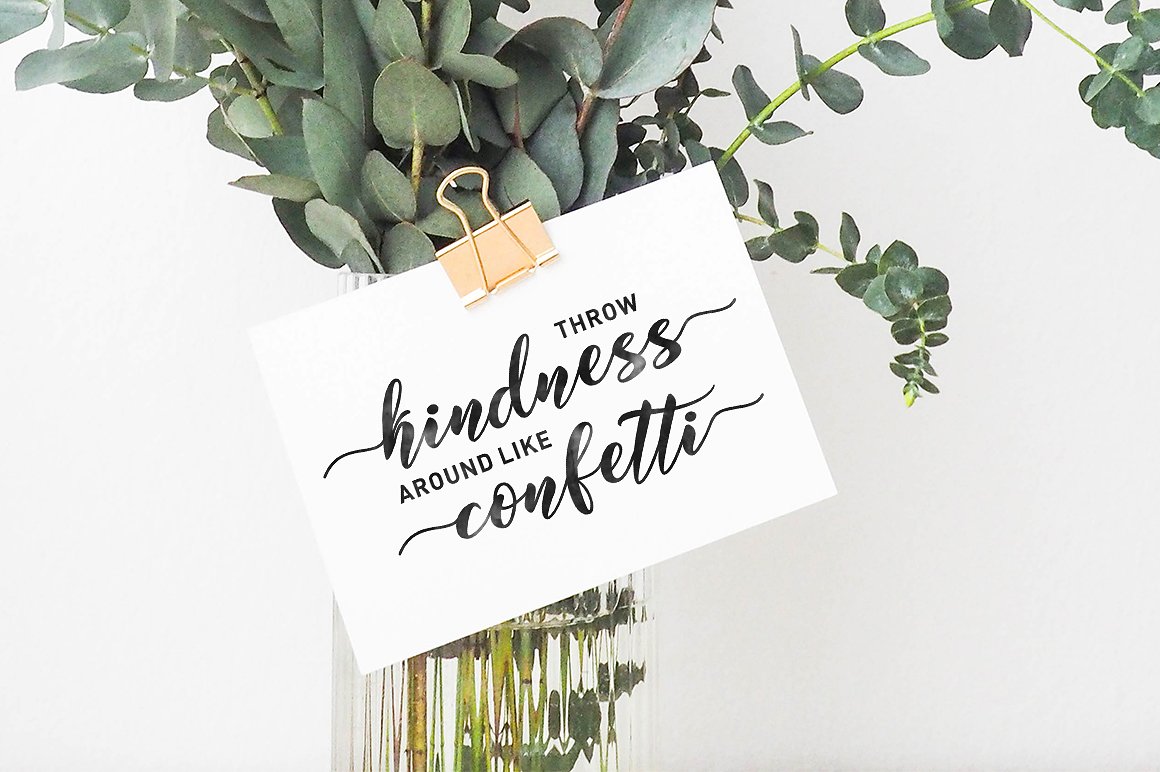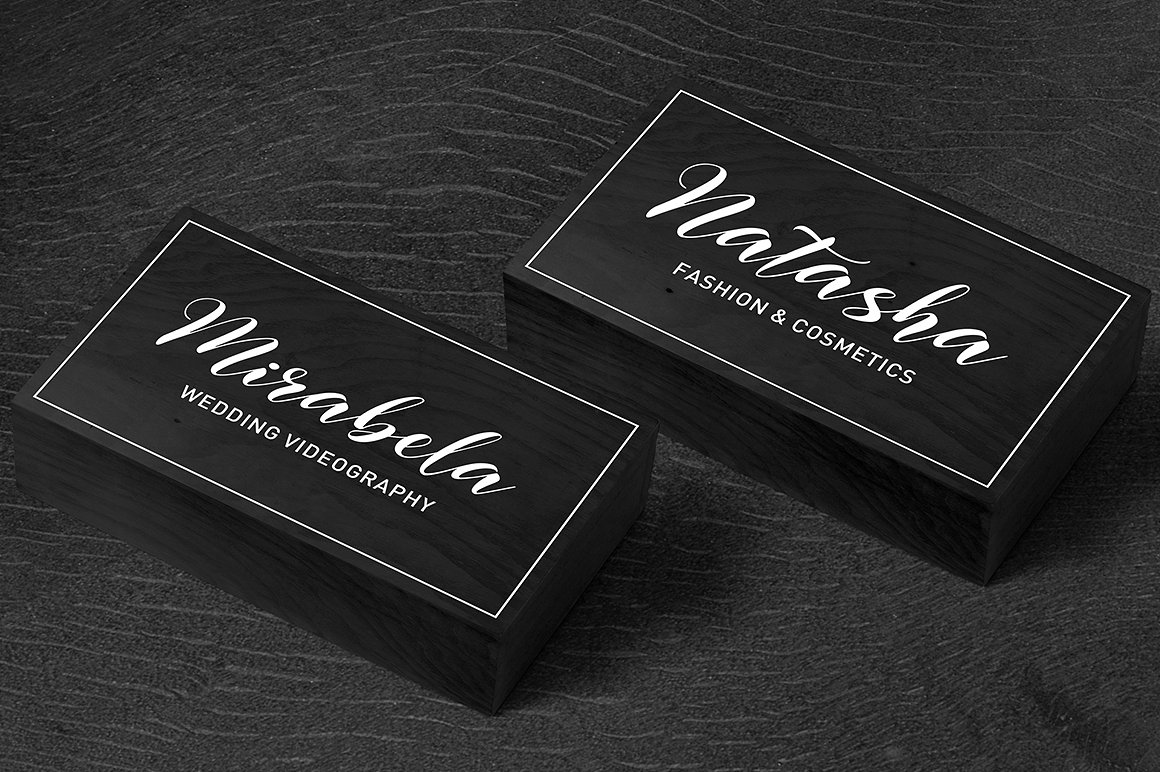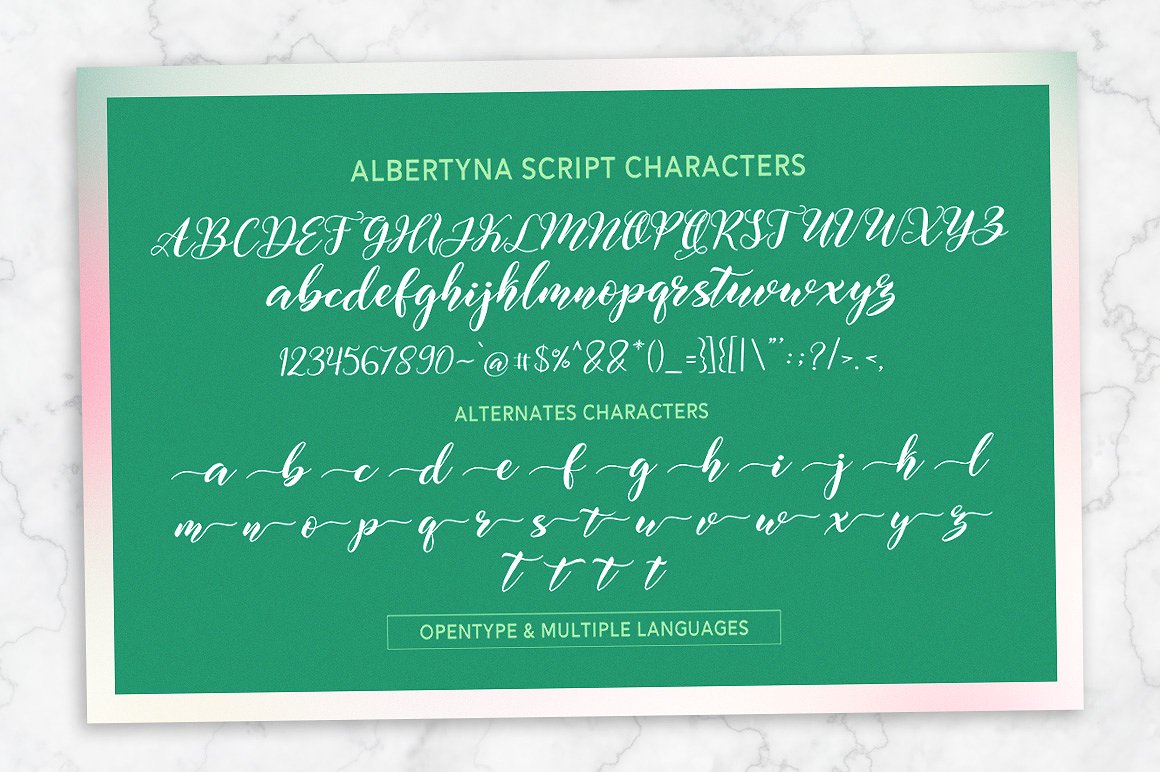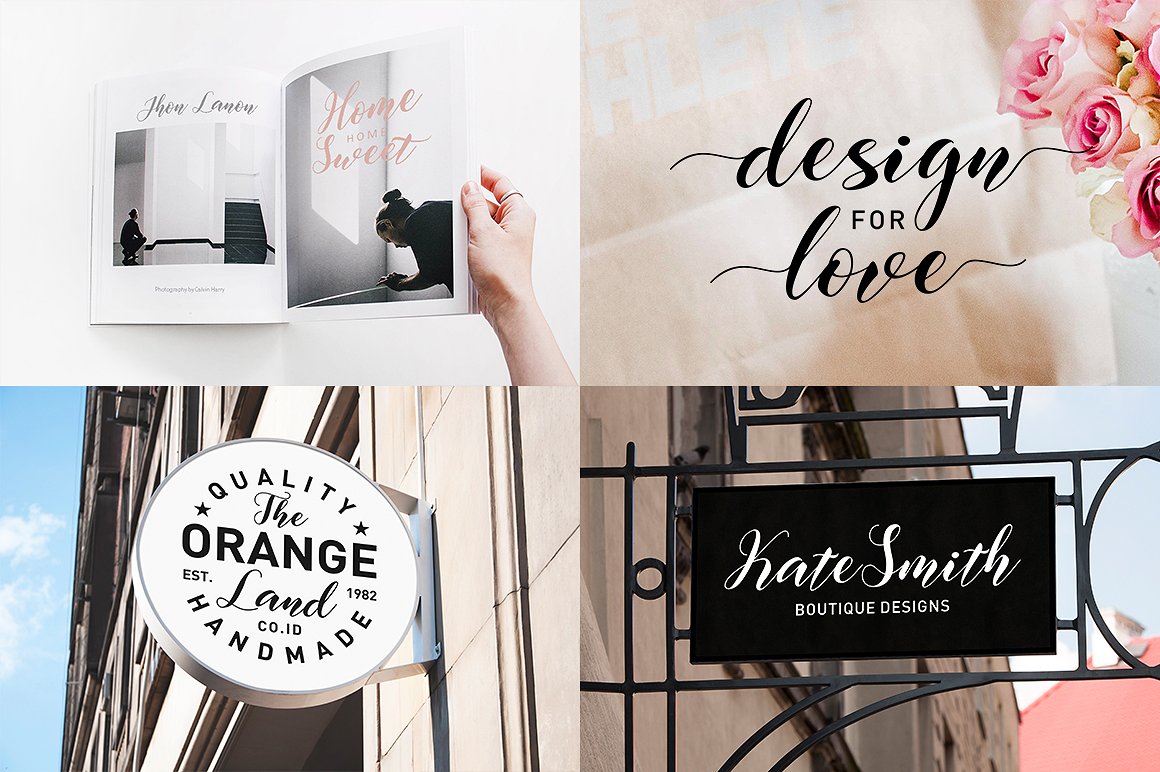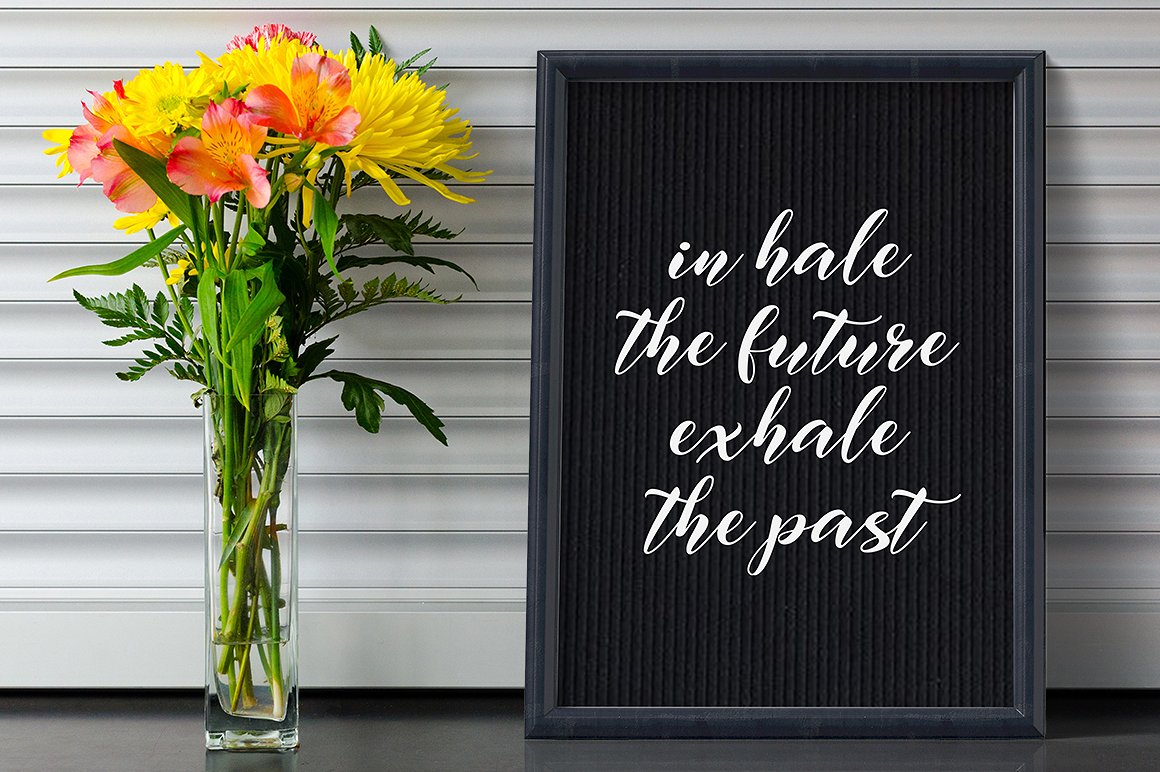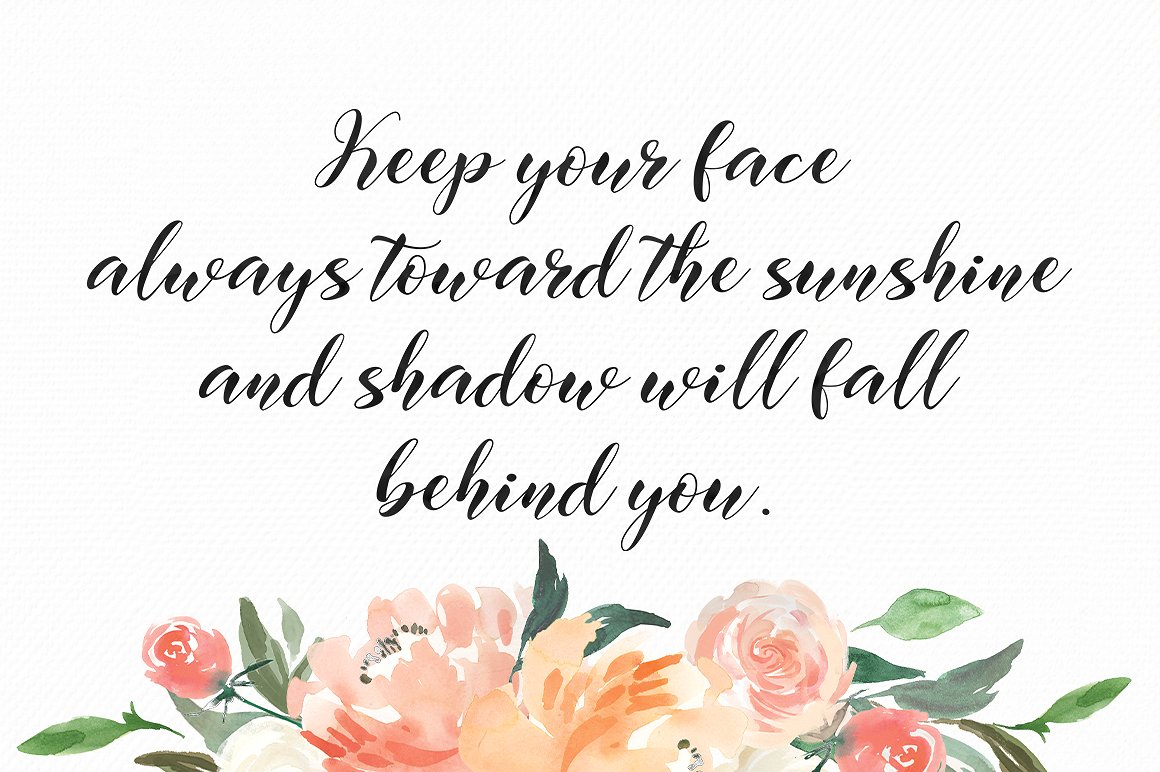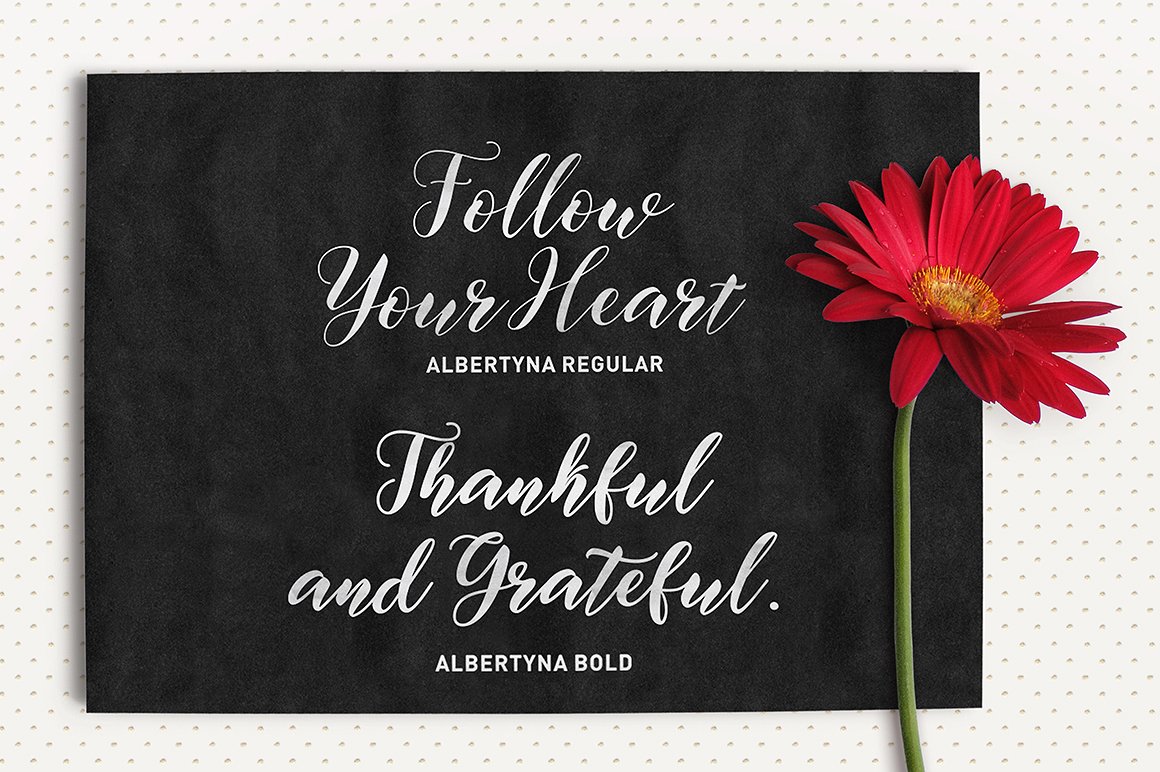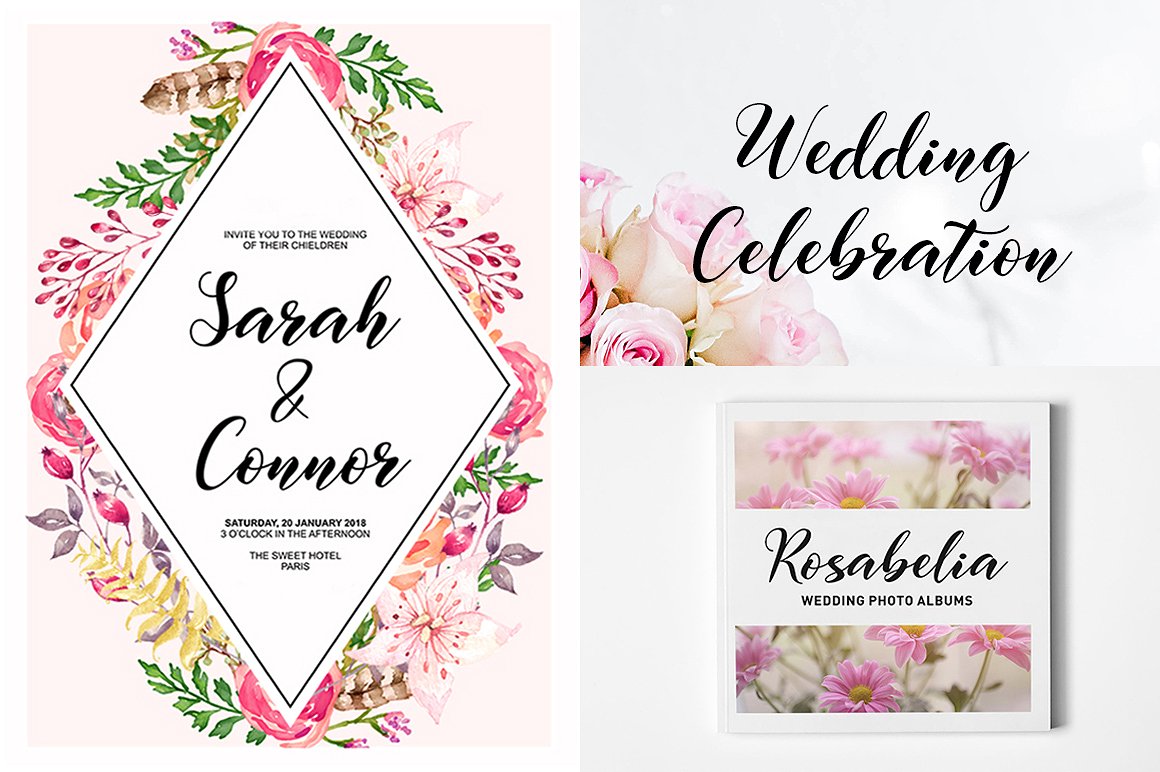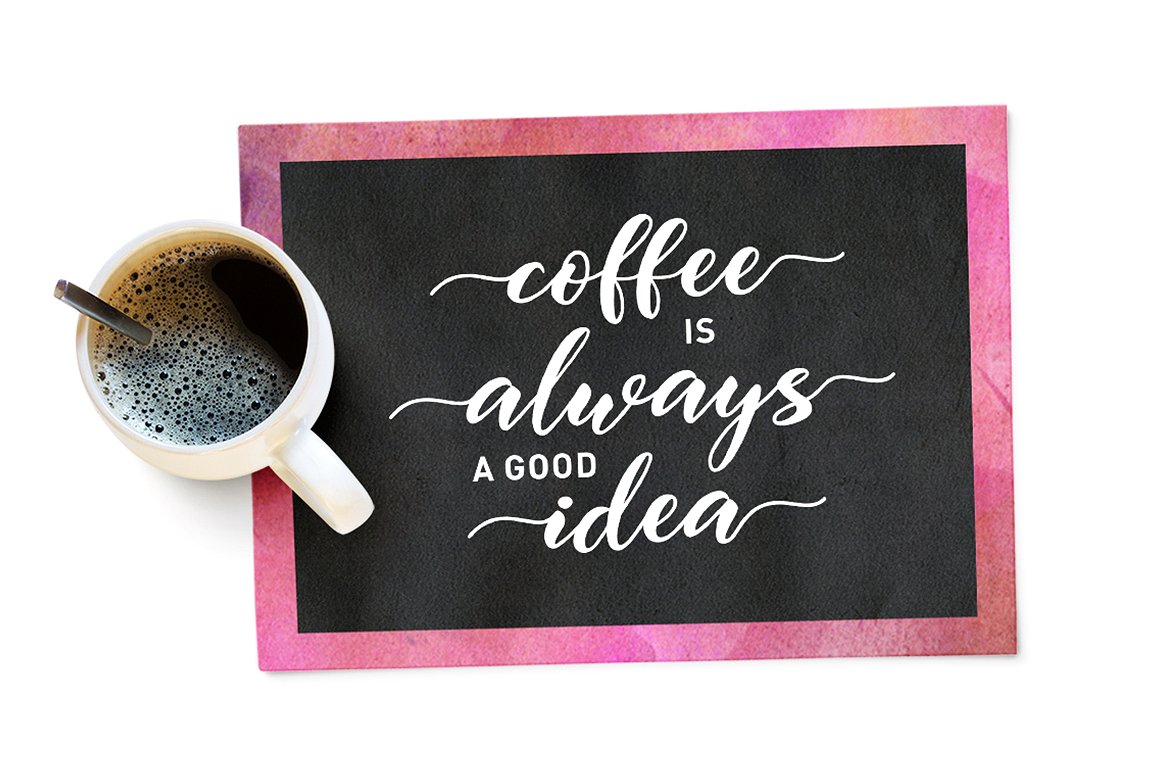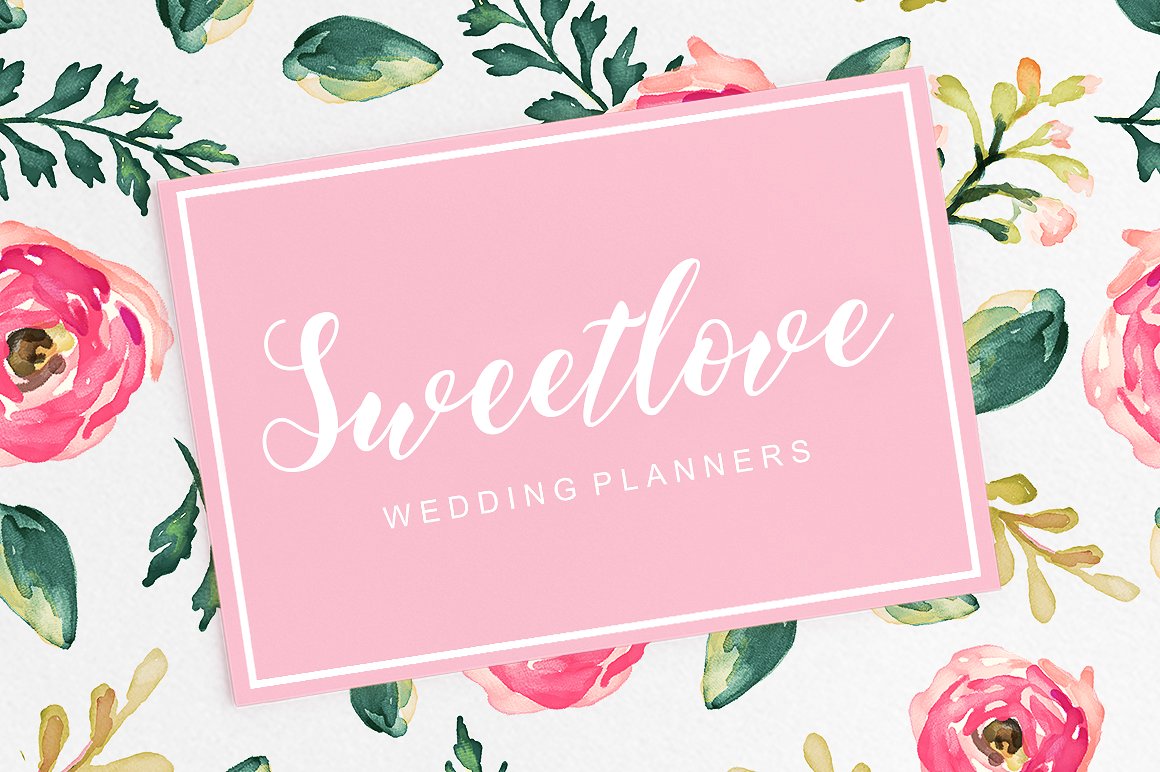
Albertyna Font
About Albertyna Font
Albertyna is a lovely and modern script, crafted in a tasteful and flowy calligraphy style. Playful with swashes, Albertyna is a beautiful and elegant font that will elevate all your creative projects.